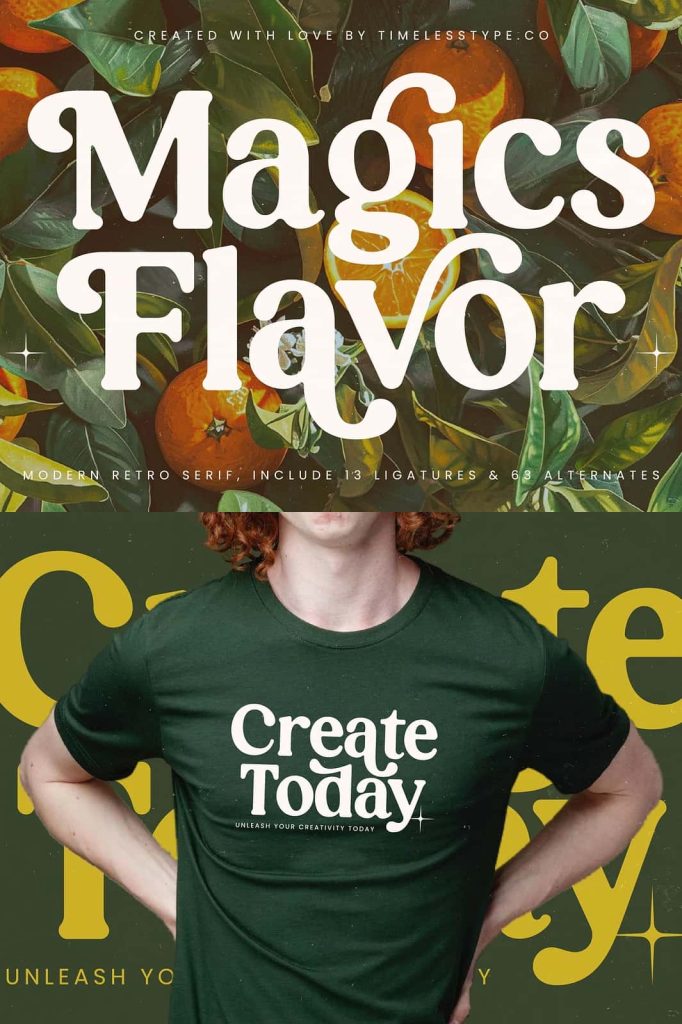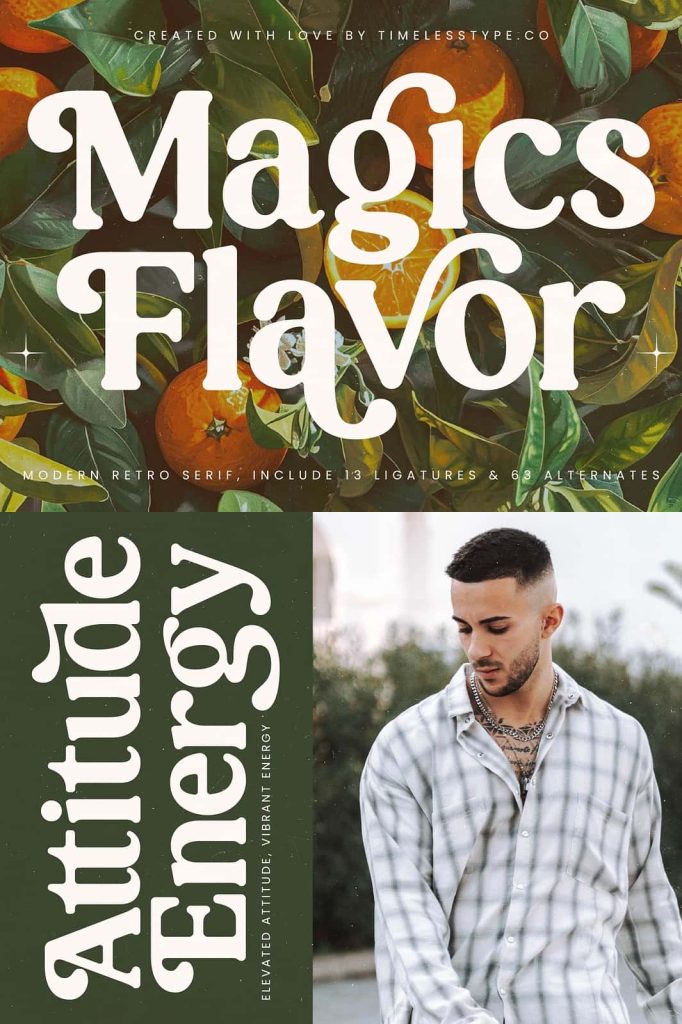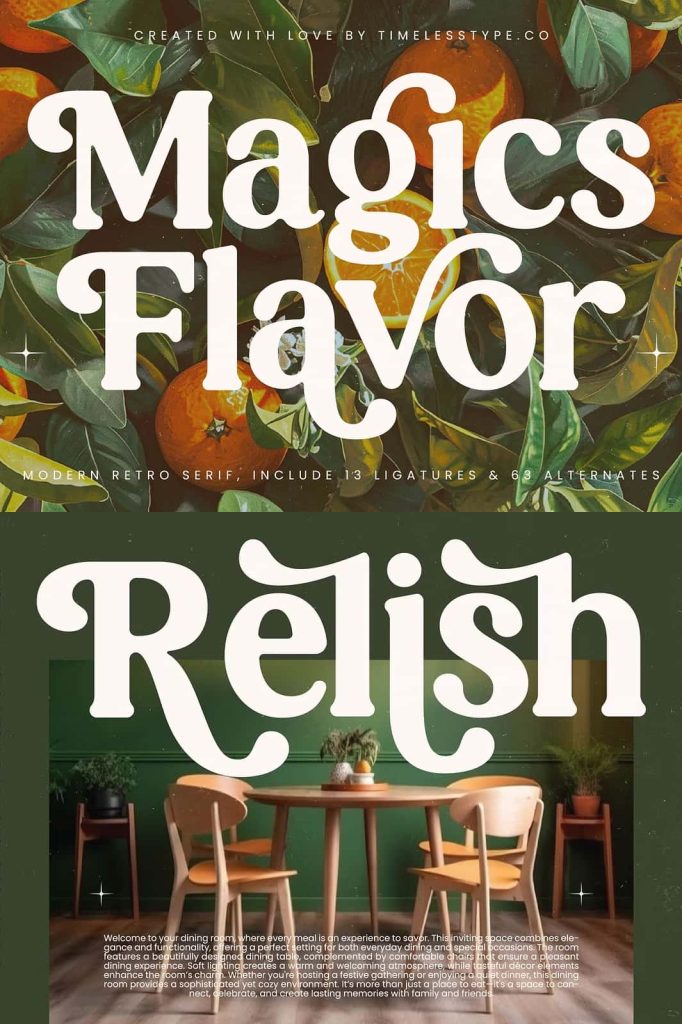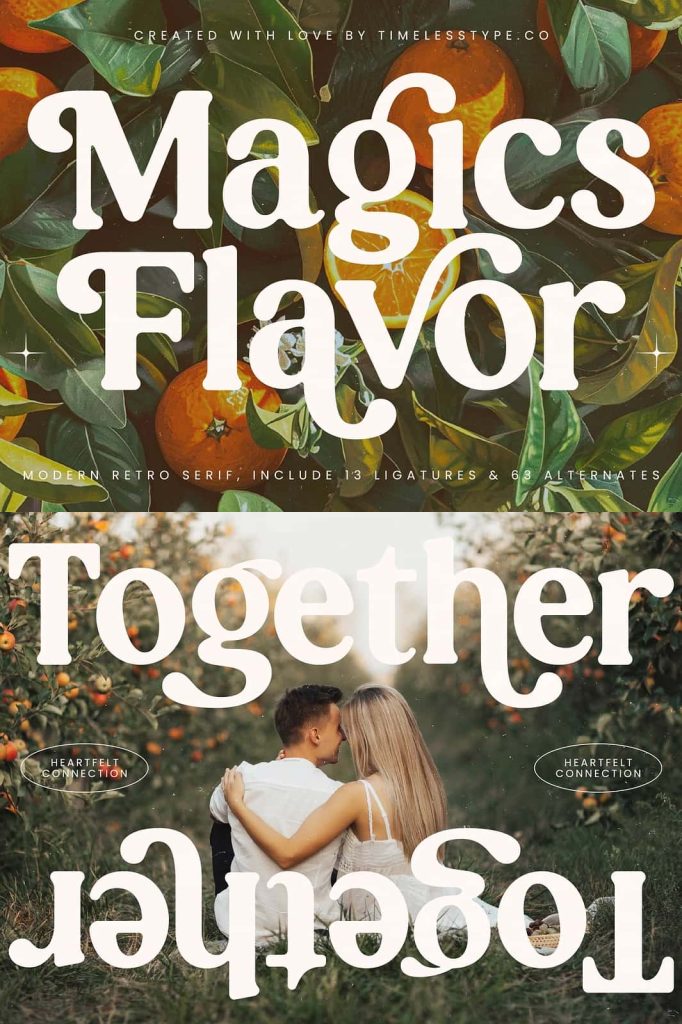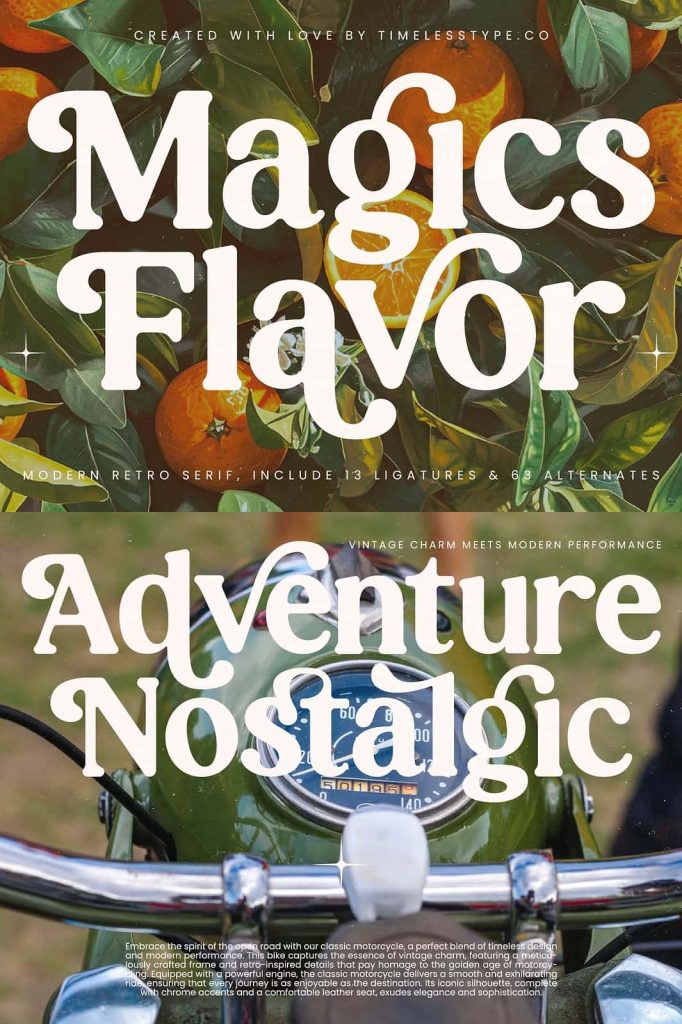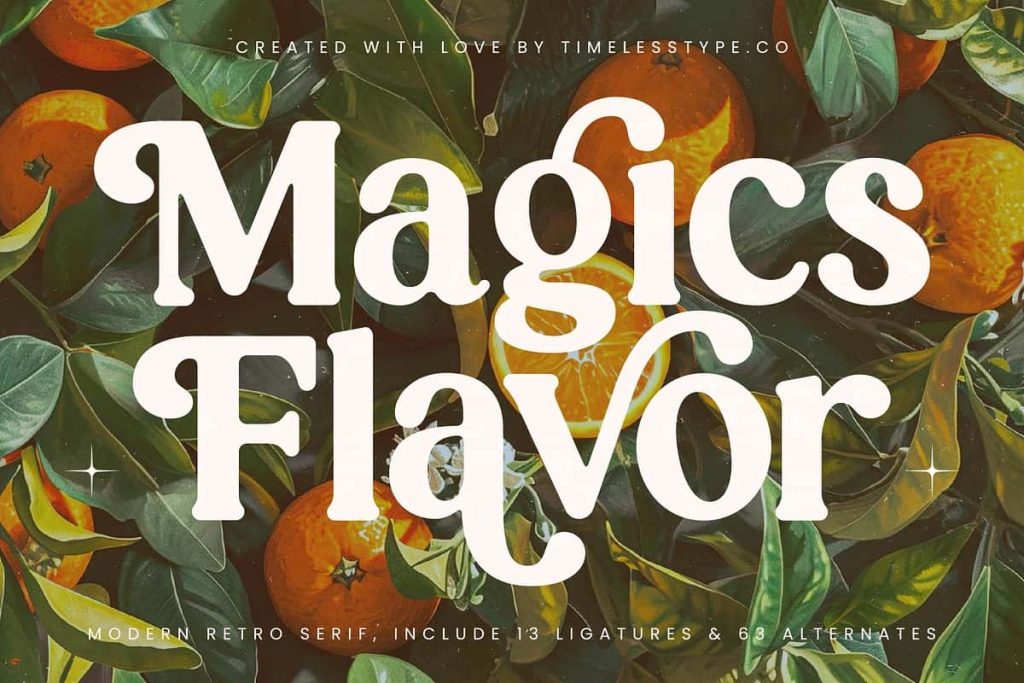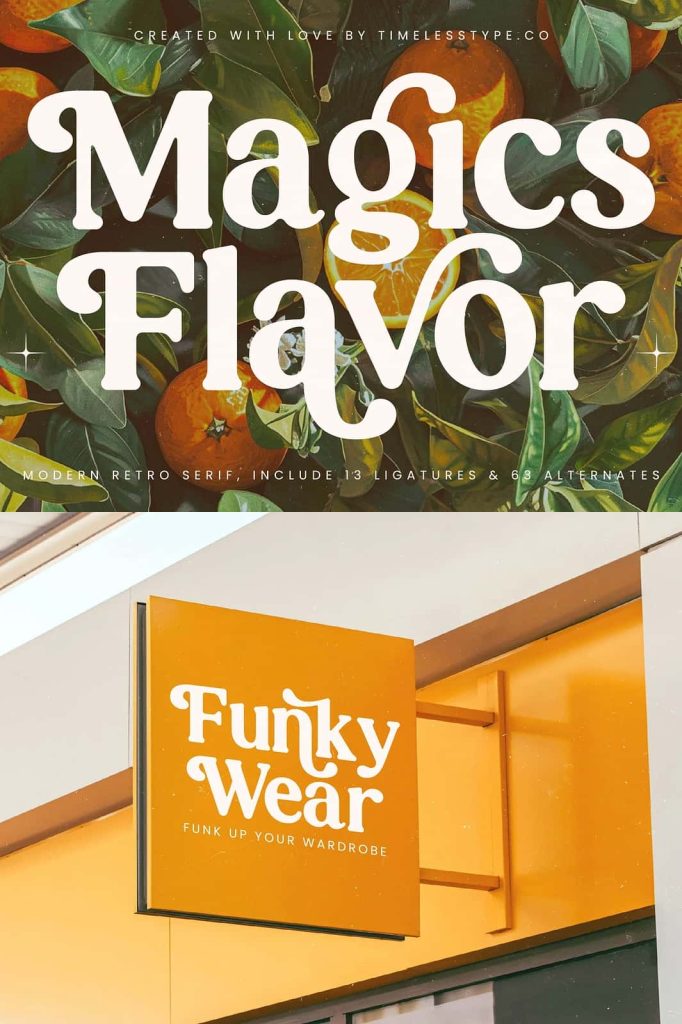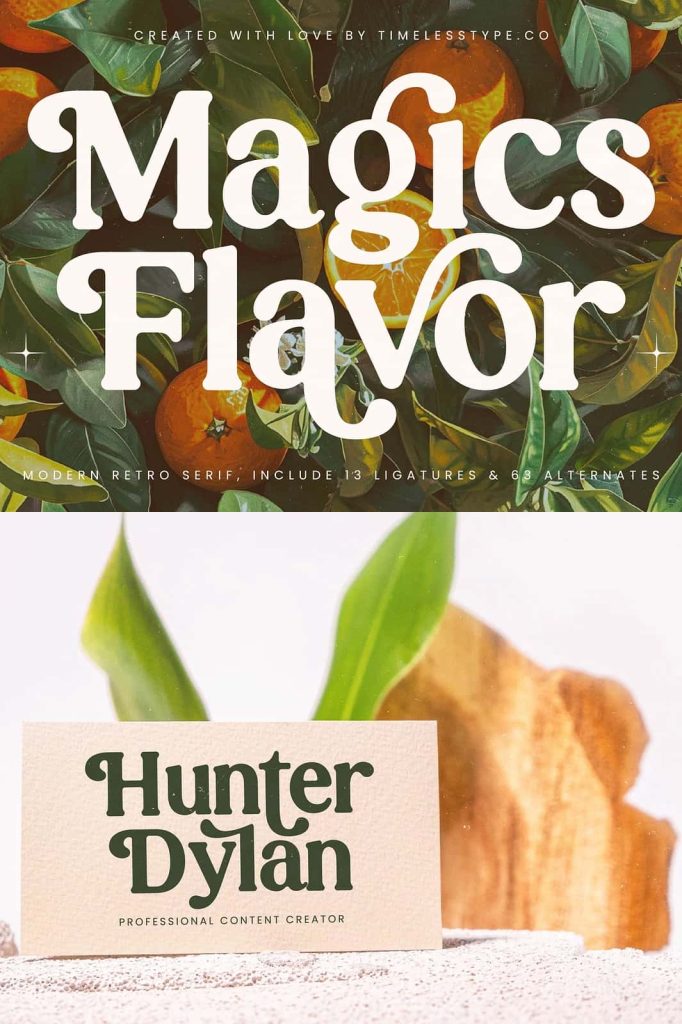
Magics Flavor – Modern Retro Serif , from Timelesstype.Co , Suitable for any projects such as: logos, branding projects, homeware designs, product packaging, mugs, quotes, posters, shopping bags, t-shirts, book covers, name card, invitation cards, greeting cards, label, photography, watermark, special events, and all your other luxury and beautiful projects that need a Luxury Serif taste.